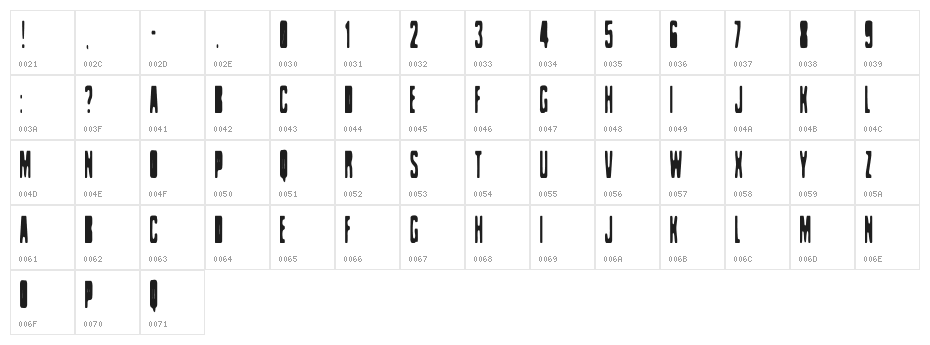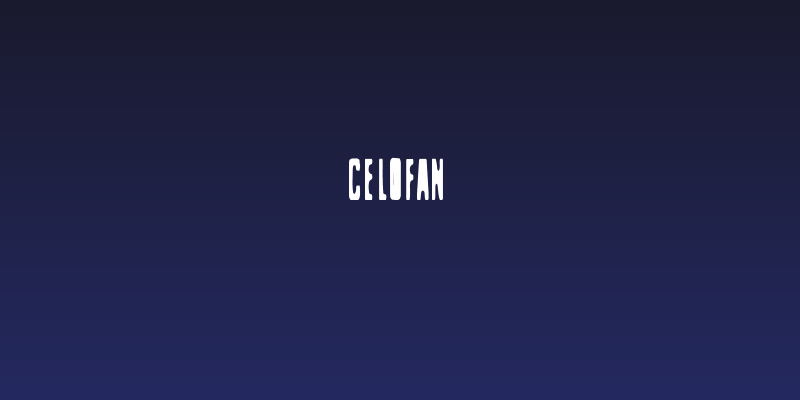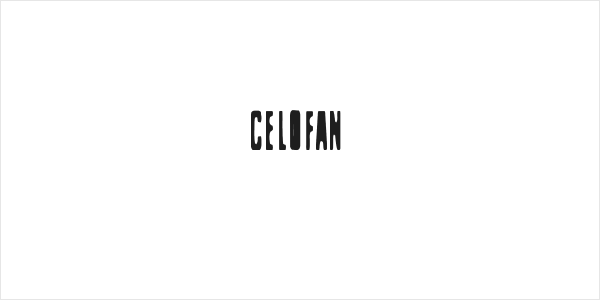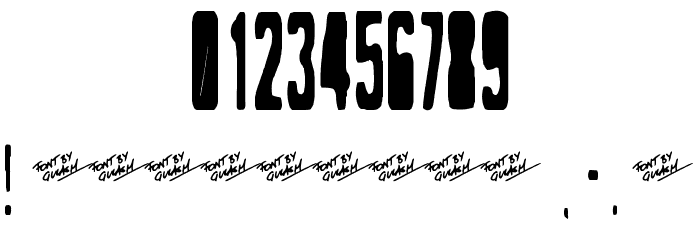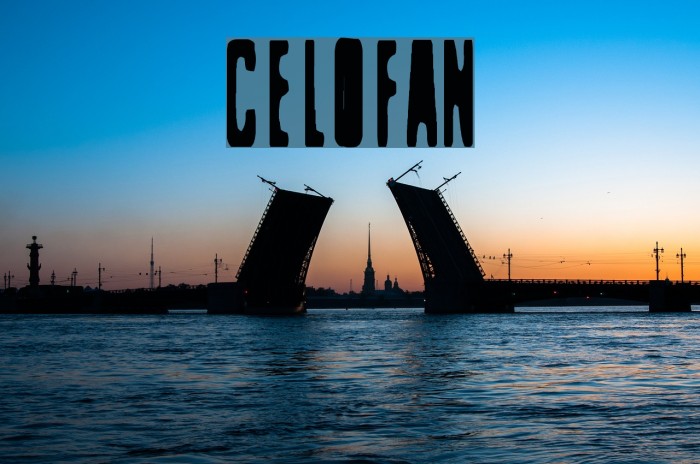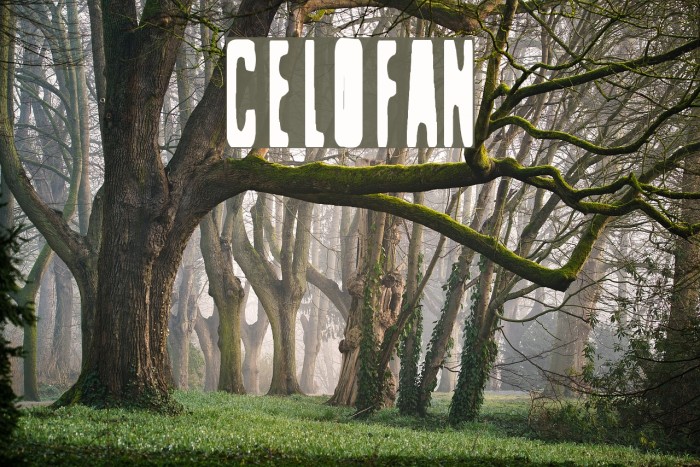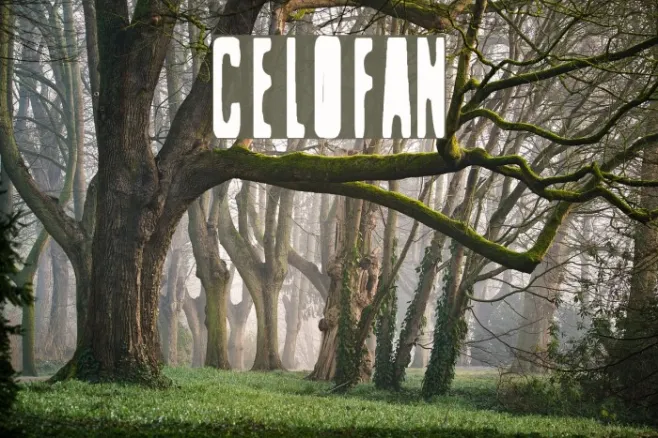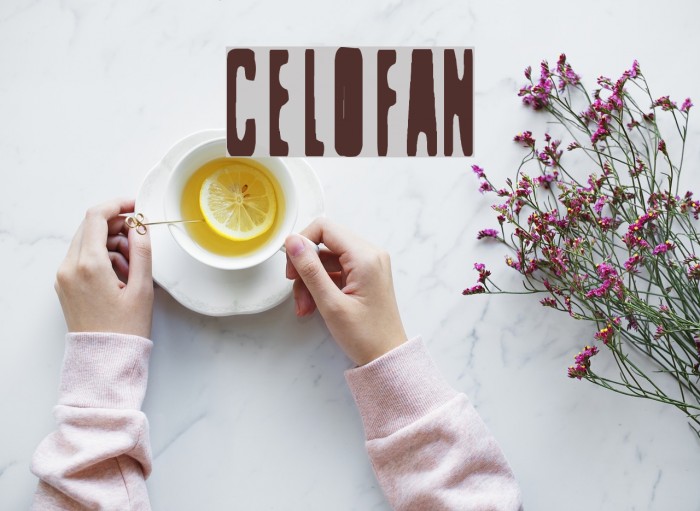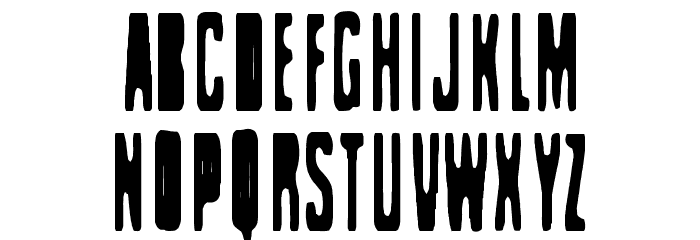
Celofan Font
Celofan Description
This font features a bold and impactful design with a distinctly vintage and decorative style. The characters are tall and narrow, with a unique unevenness that adds a handcrafted feel. The uppercase letters are particularly striking, with a strong presence that commands attention. The numbers and special characters maintain the same boldness and style, ensuring consistency across all elements. This font's design is reminiscent of retro signage or posters, making it ideal for projects that require a touch of nostalgia or a bold statement.
| Proposed Projects | Ideal for vintage-themed posters, retro signage, branding, and bold headlines. |